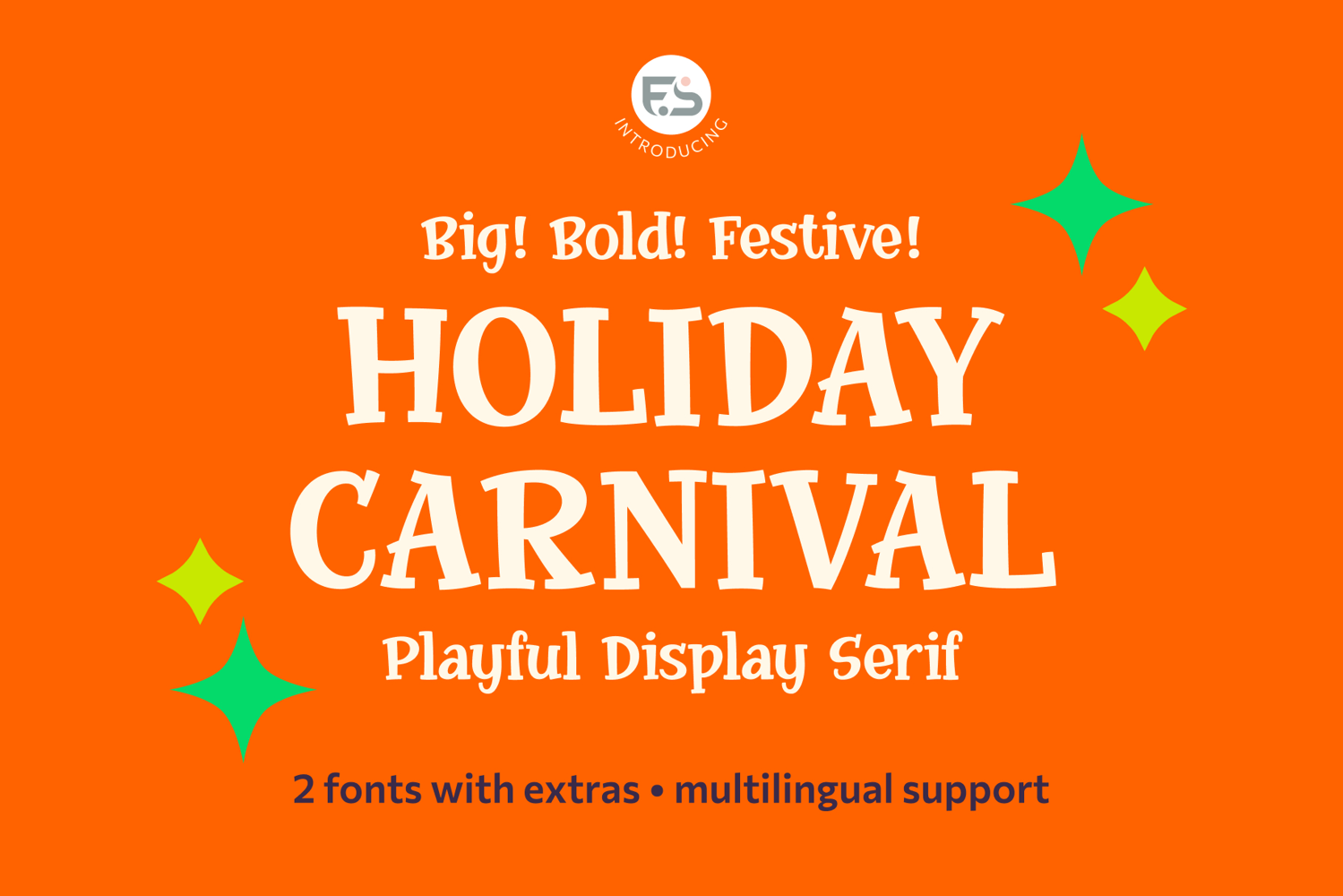
Holiday Carnival | A Playful Display Serif
Holiday Carnival is a joyful, bouncy, and bold display serif with a strong sense of celebration and movement.
Loud yet friendly, playful yet confident, this typeface feels like a colorful parade in motion. The letters slightly sway and jump, creating a lively rhythm that brings instant energy to headlines and short statements.
Designed for impact, Holiday Carnival shines in big sizes where its chunky shapes, soft serifs, and cheerful character can truly stand out. It’s perfect for posters, event graphics, packaging, kids projects, branding, and any design that needs to feel fun, festive, and full of life.
Whether you’re designing for a party, a festival, or simply want to add a joyful voice to your visuals, Holiday Carnival turns every headline into a celebration.
Best for:
• Posters & headlines
• Logos & branding
• Event and festival graphics
• Packaging
• Kids & family-friendly projects
• Social media and editorial highlights